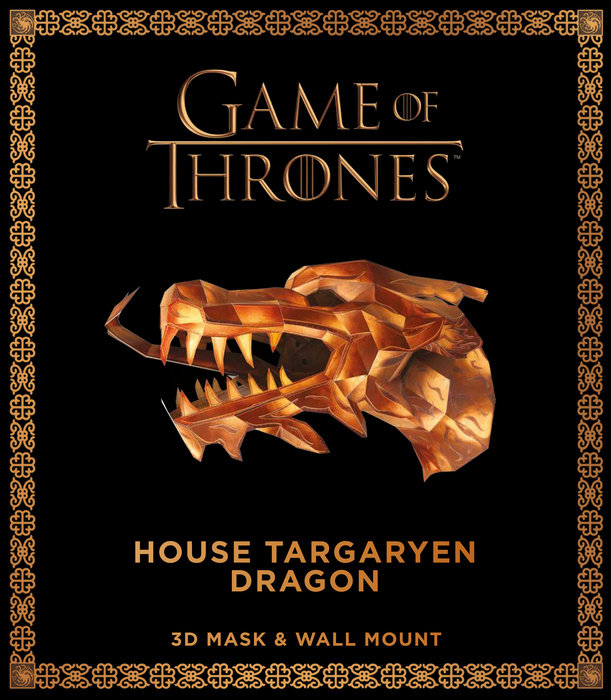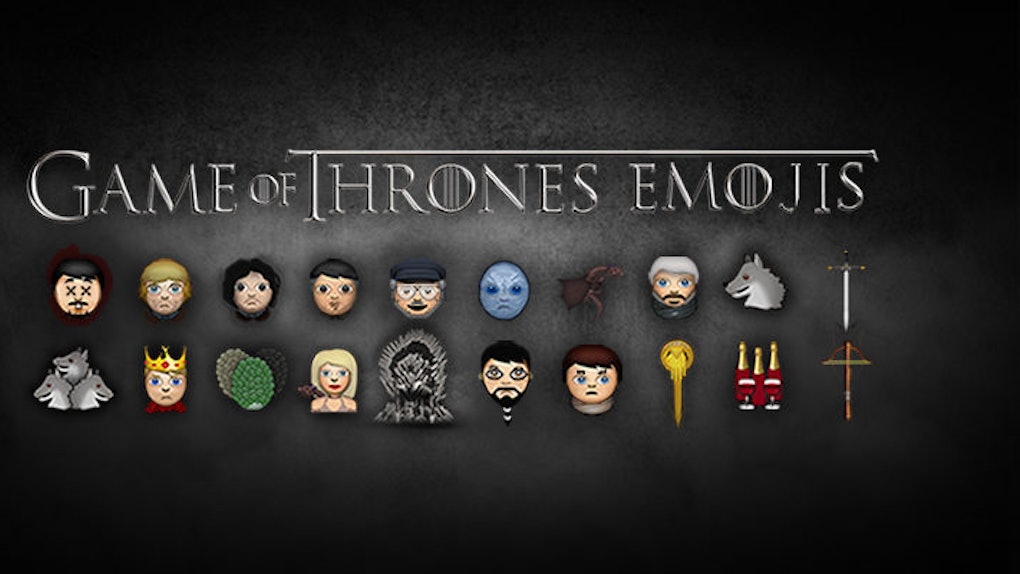
Game Of Thrones Font Copy And Paste
Fonts in use text generator Game of thrones fonts that will conquer design. The name of the show was adapted from the first book of george r.r.
Aesthetic text font generator copy paste fontvilla. You can use this font to create a logo or any other project that needs a retro feel. You can download and use the font free for personal projects.
The zip archive contains the following files: Meme template with white impact text on top and bottom. In order to download your text in stl format, you should log in with your account or create one now.
Game of thrones symbols copy paste. Know our font catalog based on one of the most illuminating series: Install the styles (italic, bold, etc.) that the aboriginal serif font offers.
How to customize tiktok fonts 6 free tiktok font generators Game of thrones is a gothic, modern font designed by charlie samways. You can use this font to print it in 3d, either with your own printer or via a printing service provider.